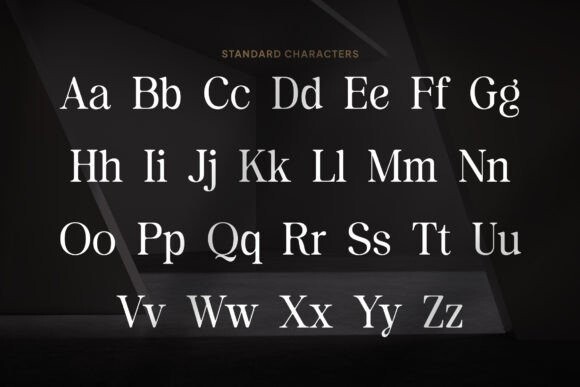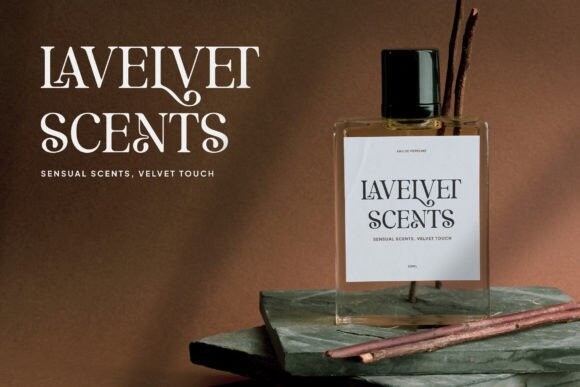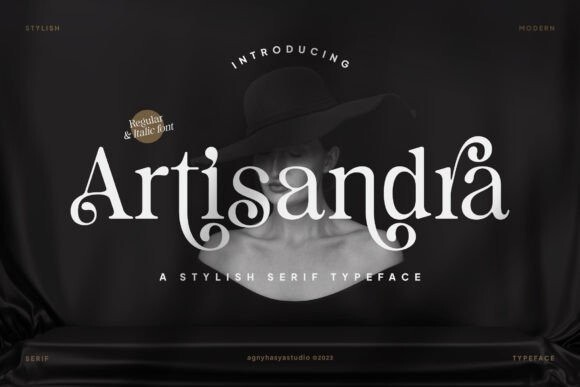
Artisandra Font
Artisandra Font, Is a Decorative Stylish Serif Display Typeface That Is Elegant, Classic Yet Modern. It Comes in 2 (Two) Styles (Regular and italic) and Is Created With Stylistic Alternatives and Ligatures. Combine It and Make Your Perfect Typography Design!
Perfect for Your Design Projects Like Logos, Branding, Advertising, Product Designs, Stationery, Magazine Designs, Book/Cover Title Designs, Photography, Art Quotes, Wedding Designs, Fashion Designs, Special Events, Labels, Product Packaging, and More.